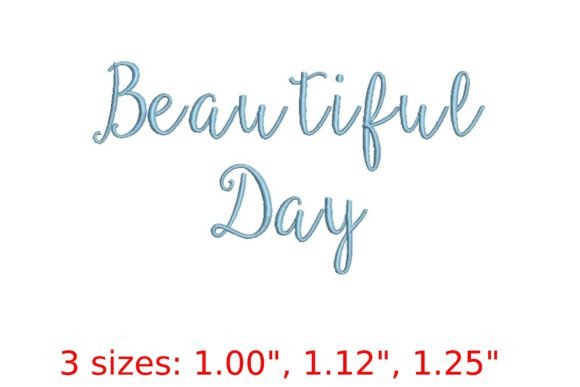
Beautiful Day Embroidery Font
The Beautiful Day Embroidery Font is more than just a design—it’s an expression of joy, creativity, and elegance. Inspired by the phrase that captures the essence of a perfect day, this script embroidery font brings a touch of charm and sophistication to any project. Whether you're crafting personalized gifts, enhancing branding materials, or adding a decorative flair to your home décor, this font offers versatility and beauty in every stitch.
Aesthetic Elegance Meets Practicality
Designed with both form and function in mind, the Beautiful Day Embroidery Font features flowing, cursive strokes that mimic handwritten elegance. Its soft curves and graceful lines make it ideal for creating a sense of warmth and approachability. The font maintains clarity even at smaller sizes, ensuring readability without sacrificing style.
One of its standout qualities is its adaptability. It works well on a variety of surfaces—from fabric to leather—and can be customized to suit different color schemes and themes. This makes it a go-to choice for those who want their embroidery to stand out while remaining easy to read and visually appealing.
Applications Across Multiple Domains
The Beautiful Day Embroidery Font isn’t limited to personal use. Its versatility allows it to thrive in a wide range of settings:
- Personal Projects: From custom monogrammed towels to embroidered name tags, this font adds a personal touch that feels both refined and heartfelt.
- Professional Branding: Businesses can use it to create eye-catching logos, signage, or promotional items that reflect a positive, uplifting brand image.
- Education: Teachers and educators can incorporate it into classroom decor, student awards, or motivational quotes that inspire creativity and positivity.
- Creative Industries: Designers, artists, and crafters will find it invaluable for creating unique pieces that blend artistry with functionality.
- Commercial Use: Retailers and boutique owners can use it to customize products like apparel, accessories, and home goods, offering customers a distinctive shopping experience.
Why Choose Beautiful Day Embroidery Font?
There are several reasons why the Beautiful Day Embroidery Font stands out from other embroidery fonts:
- Timeless Appeal: Its elegant, script design ensures it remains stylish across generations and trends.
- High-Quality Output: The design is optimized for embroidery machines, ensuring crisp, clean results with minimal thread tension issues.
- Customizable: Users can adjust colors, placement, and scale to match their specific needs and creative vision.
Practical Tips for Using Beautiful Day Embroidery Font
Whether you’re a seasoned embroiderer or a beginner, there are a few key tips to keep in mind when working with the Beautiful Day Embroidery Font:
- Test Before Committing: Always test the font on a small piece of fabric before embarking on a larger project to ensure it performs as expected.
- Use the Right Thread: For best results, choose threads that complement the color scheme and maintain the font’s delicate appearance.
- Adjust Stitch Density: Depending on the fabric type and desired outcome, tweak stitch density to achieve a smooth, professional finish.
- Consider Placement: Think about where the font will be placed—on a garment, a wall, or a gift—and adjust the size accordingly to ensure visibility and impact.
- Explore Combinations: Pair the font with other designs or patterns to create a cohesive look that reflects your personal or brand identity.
Real-World Examples and Use Cases
Imagine using the Beautiful Day Embroidery Font to create a custom wedding invitation with a handcrafted feel. Or consider its use in a boutique that sells personalized jewelry with engraved names and dates. In educational settings, it could be used to label classroom supplies or create motivational posters that inspire students.
For businesses, this font can elevate packaging, signage, and promotional materials, helping to build a strong, recognizable brand presence. It’s also perfect for seasonal decorations, such as holiday tags or birthday cards, where a touch of elegance can make all the difference.
Conclusion
The Beautiful Day Embroidery Font is a valuable tool for anyone looking to add a touch of beauty and positivity to their embroidery projects. Its elegant design, practical applications, and user-friendly features make it a top choice for creators, professionals, and hobbyists alike. Whether you're crafting for personal use or commercial purposes, this font offers a versatile, high-quality solution that enhances both aesthetics and functionality.